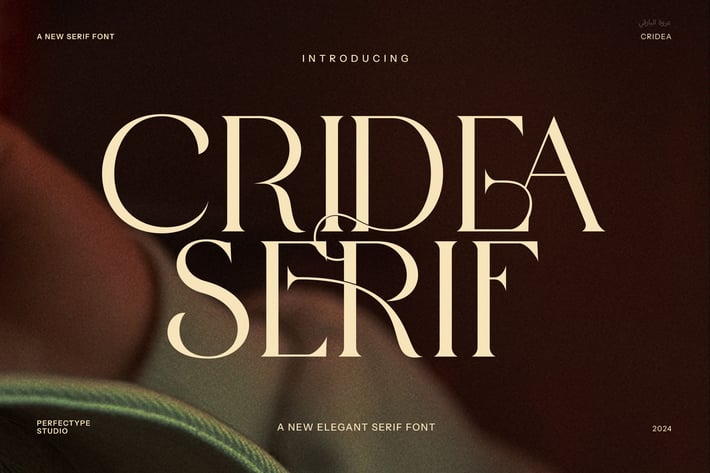
Cridea Elegant Serif Font
Cridea Elegant Serif Font is a refined vintage-inspired typeface that seamlessly blends classic sophistication with modern elegance. Its unique design, featuring timeless serifs and smooth curves, brings a sense of history and luxury to any project. With its carefully crafted letterforms, Cridea is perfect for conveying a sense of premium quality and nostalgia while remaining fresh and versatile for contemporary design needs.
This font excels in creating standout visuals for branding, logos, and identity design, offering a perfect balance of elegance and readability. Whether you're designing for a high-end boutique, a gourmet food brand, or a luxury lifestyle company, Cridea Elegant Serif adds a touch of refinement that speaks to both heritage and style. Its vintage appeal makes it an excellent choice for creative ventures that seek to evoke nostalgia without sacrificing modern design sensibilities.
In addition to branding, Cridea shines in editorial layouts, magazines, product packaging, and advertisements. Its unique character and versatility make it ideal for large headlines as well as smaller body text, ensuring that your message is communicated with both impact and clarity. Whether used for fashion, food, or hospitality, Cridea enhances any design with its sophisticated presence.
The Cridea Elegant Serif Font is more than just a typeface—it's an expression of luxury and craftsmanship, perfect for designers looking to create something memorable and distinguished. Make your next project stand out with the timeless beauty of Cridea.